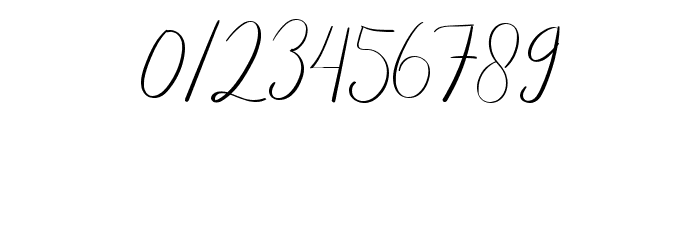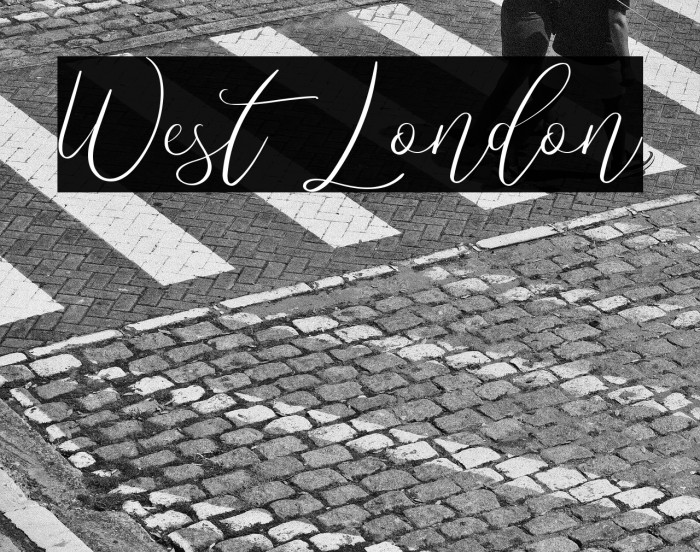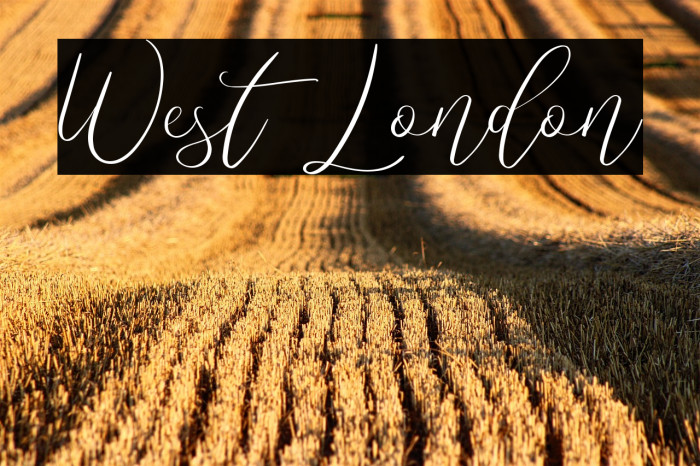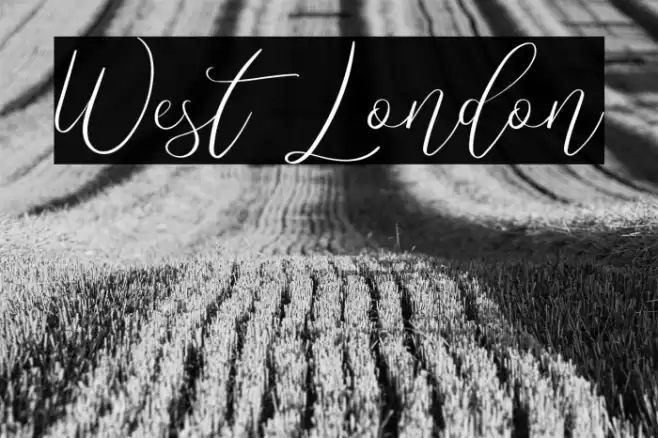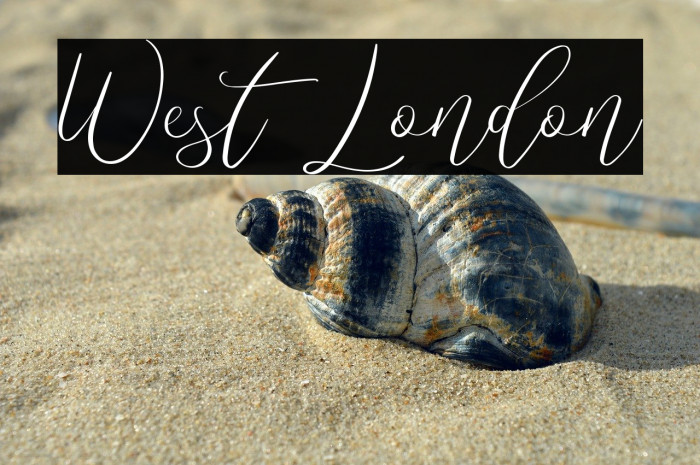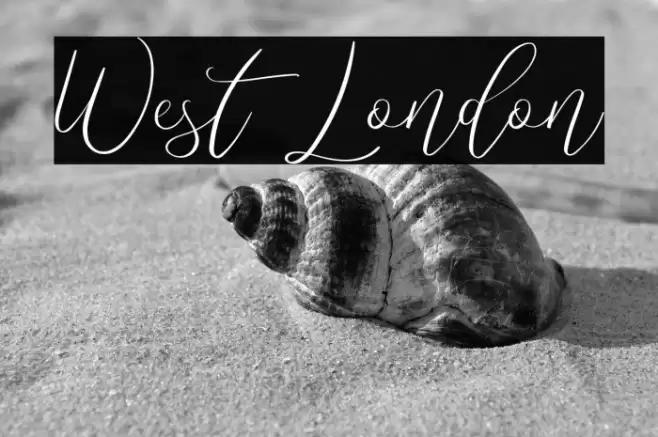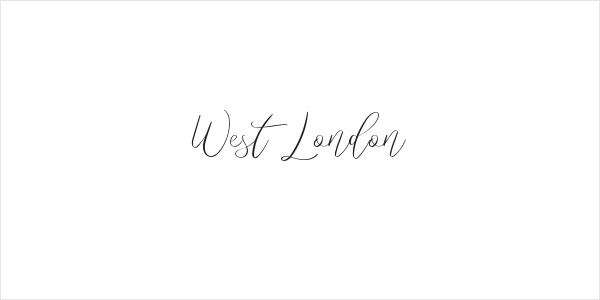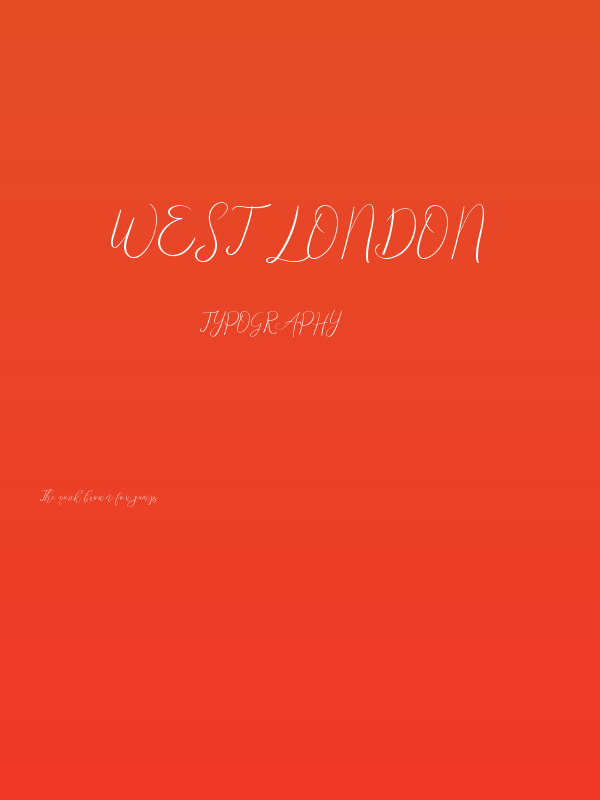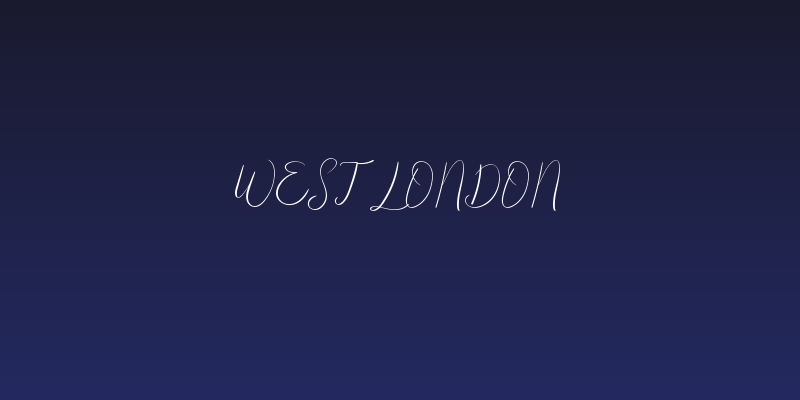
West London Font
West London Description
This elegant script font features a flowing, cursive style with a modern twist. The uppercase letters are tall and slender, with graceful loops and swashes that add a touch of sophistication. The lowercase letters maintain a consistent flow, with smooth connections between characters, enhancing readability while preserving an artistic flair. The numerals are distinct and maintain the same elegant style, making them suitable for a variety of uses. The special characters are designed to complement the overall aesthetic, ensuring a cohesive look across all text elements. This font is perfect for projects that require a touch of elegance and style, such as wedding invitations, branding, and high-end product packaging.
| Overall Style | Elegant, Modern |
| Proposed Projects | Ideal for wedding invitations, branding, high-end product packaging, and elegant stationery. |